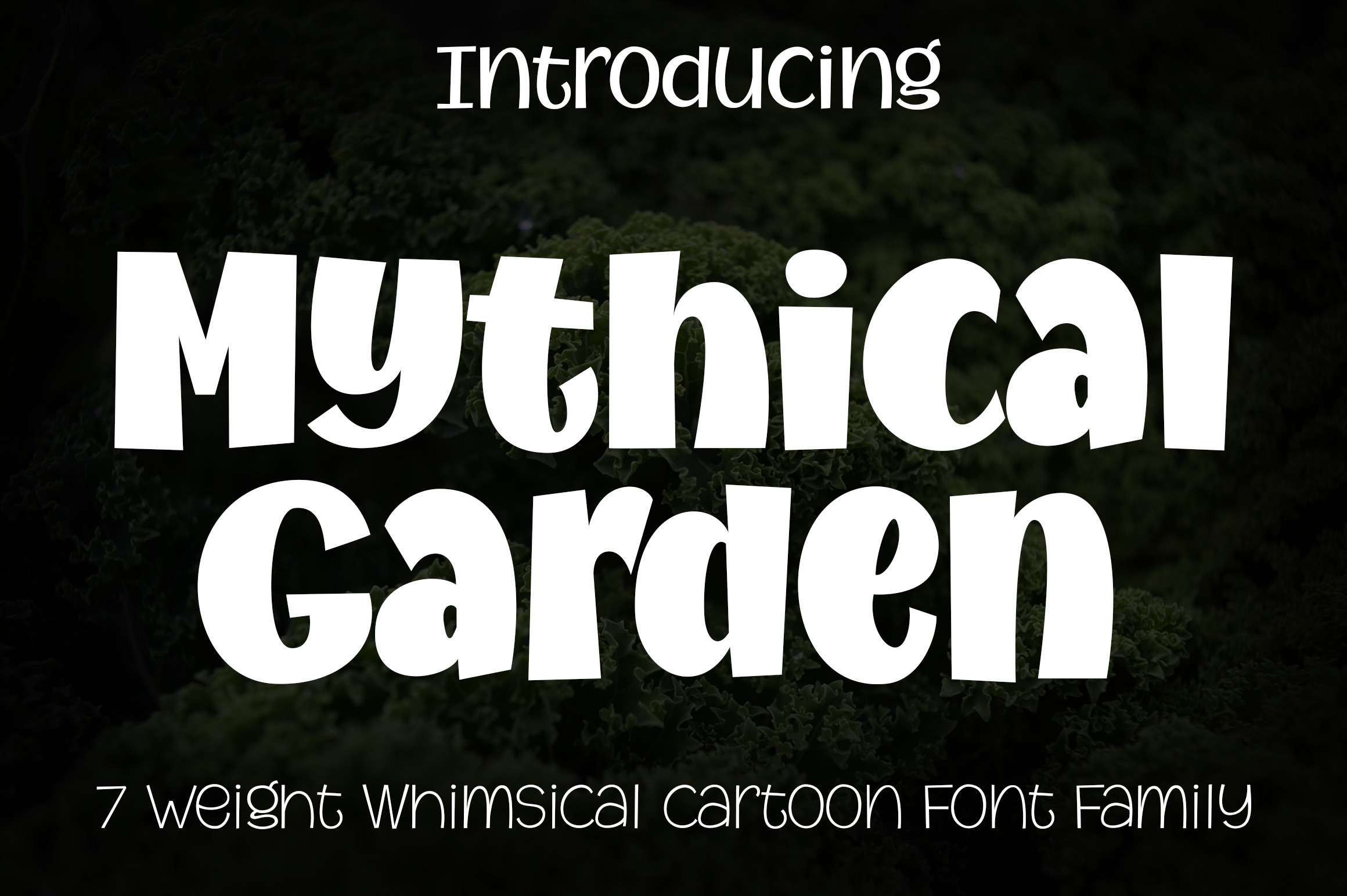
Introducing a new cool comic font family!, named as Mythical Garden. This font was carefully crafted with clean node. Available in seven weight variation, so you can enjoy design a page just with a font family.